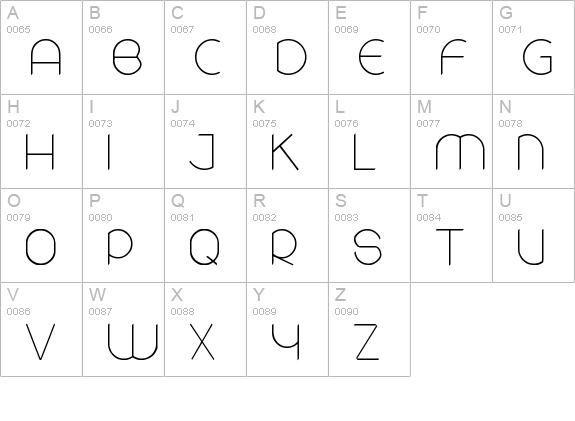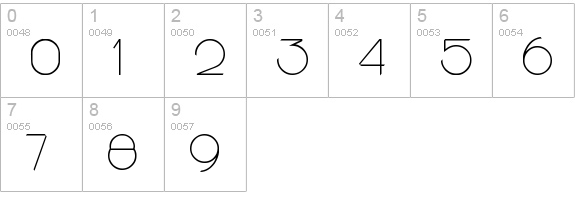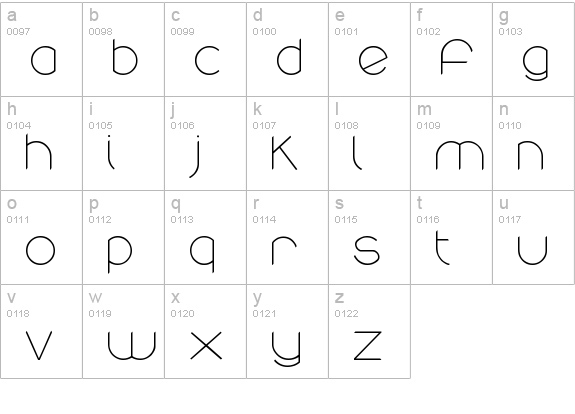
Introducing the Round Font, a versatile and modern typeface that exudes a sense of elegance and sophistication. With its smooth curves and rounded edges, this font is perfect for adding a touch of warmth and friendliness to your designs. Whether you're creating logos, signage, invitations, or any other project, the Round Font is sure to make a lasting impression. Best of all, the Round Font is available for free download at FontsMarket.com. Simply visit the website to access this beautiful font and elevate your creative projects with its unique charm. Don't miss out on this opportunity to enhance your designs with the timeless appeal of the Round Font. Download it today and start creating stunning visuals that stand out from the crowd.